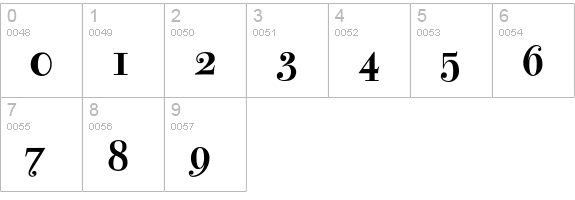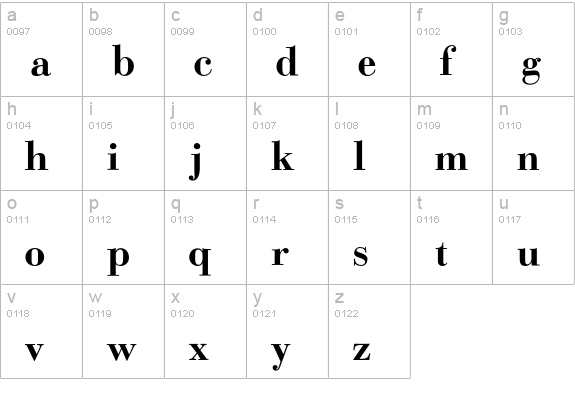
BodoniClassic-AdBold is a striking and elegant font that exudes sophistication and style. Its bold and commanding presence makes it perfect for headlines, titles, and other prominent text in both print and digital designs. The clean lines and sharp serifs of BodoniClassic-AdBold give it a timeless appeal that is sure to make a statement. What makes BodoniClassic-AdBold even more appealing is that it is available for free download at FontsMarket.com. This means you can add this beautiful font to your collection without any cost, making it a valuable asset for your design projects. Whether you're working on a poster, website, or any other creative endeavor, BodoniClassic-AdBold is sure to elevate your typography and leave a lasting impression. Download it today and enhance your designs with this exquisite typeface.